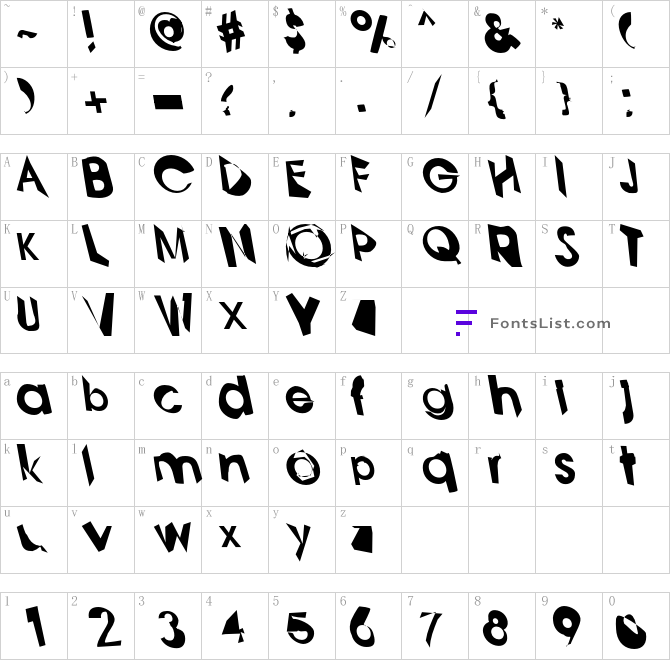
- Font Name:Analytik
Analytik.otf is a very beautiful artistic font, Analytik.otf is widely used in the design and printing of various books and pictures,Analytik.otf has a strong visual impact,Analytik.otf is a commonly used font in newspapers, magazines and books, and is used in posters, e-commerce Poster design, store design, logo design, font design and other fields.Analytik.